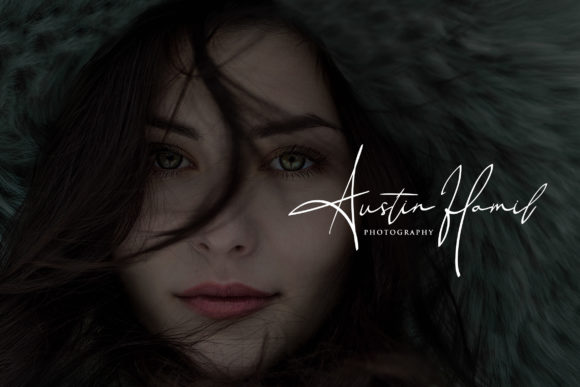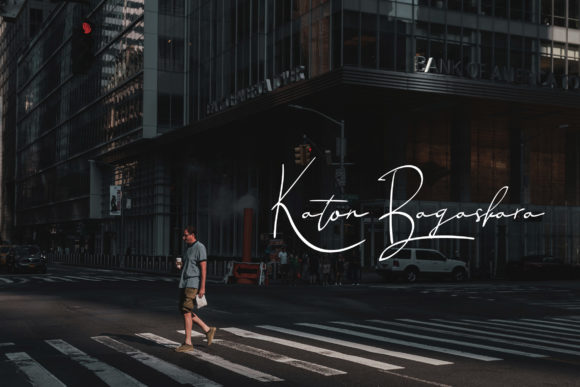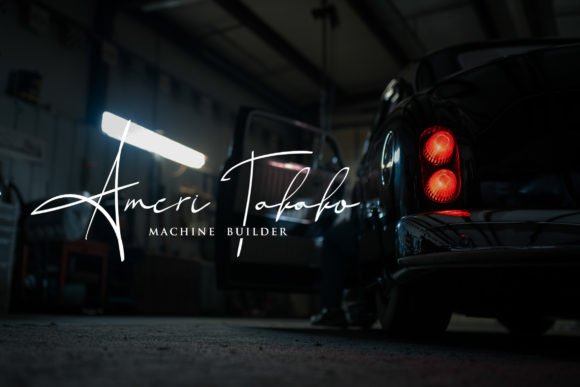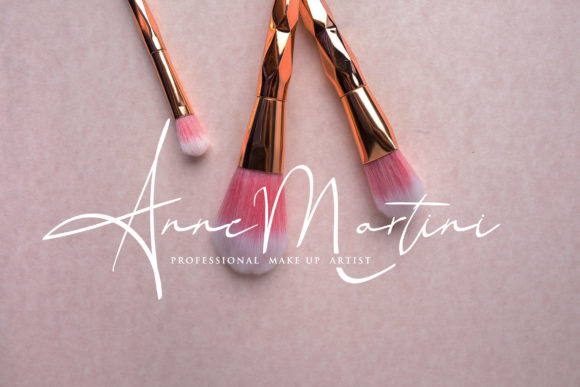
Anastasiya Font
About Anastasiya Font
The Anastasiya is an elegant signature font. It’s handwritten style will add a personal feel to your designs.
It’s perfect for modern designs, photography, signature, branding, and much more!